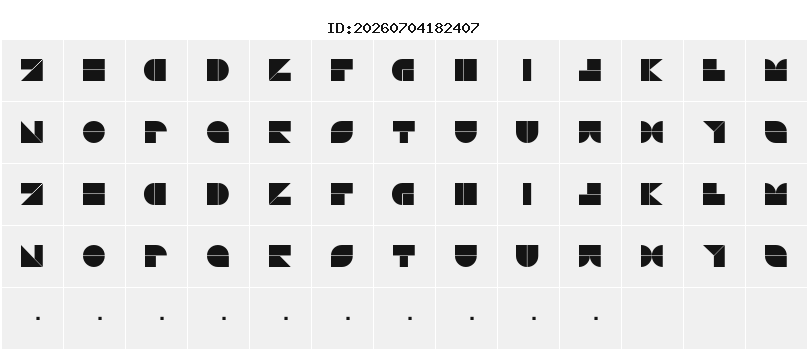
Drebiek.otf
Drebiek Preview
• Font Name: Drebiek
• Font Style: Semi-expanded Regular
• Designer: Daniel Angermann
About Drebiek.otf
Drebiek.otf is a modern, elegant sans-serif font designed for ultimate readability and visual harmony. Perfect for branding, headlines, web design, and print materials.